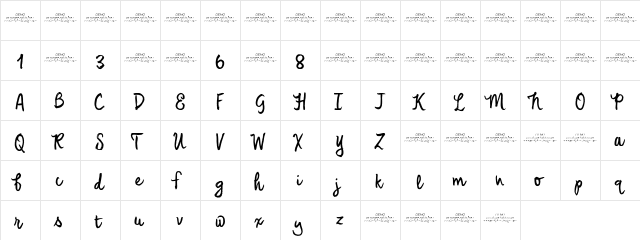
Emily Lime Brush Demo Regular
Design Context for Emily Lime Brush Demo Typeface
Emily Lime Brush Demo brings a calligraphic fluidity to the page — its connecting strokes and expressive curves give it an unmistakably human quality.
Font Pairing: Combine Emily Lime Brush Demo with a simple geometric sans for maximum contrast — the tension between flowing curves and clean structure is a classic typographic pairing.
Pro Tip: Pair Emily Lime Brush Demo with a clean sans-serif for supporting text. The contrast between fluid script and geometric structure creates an elegant typographic hierarchy.